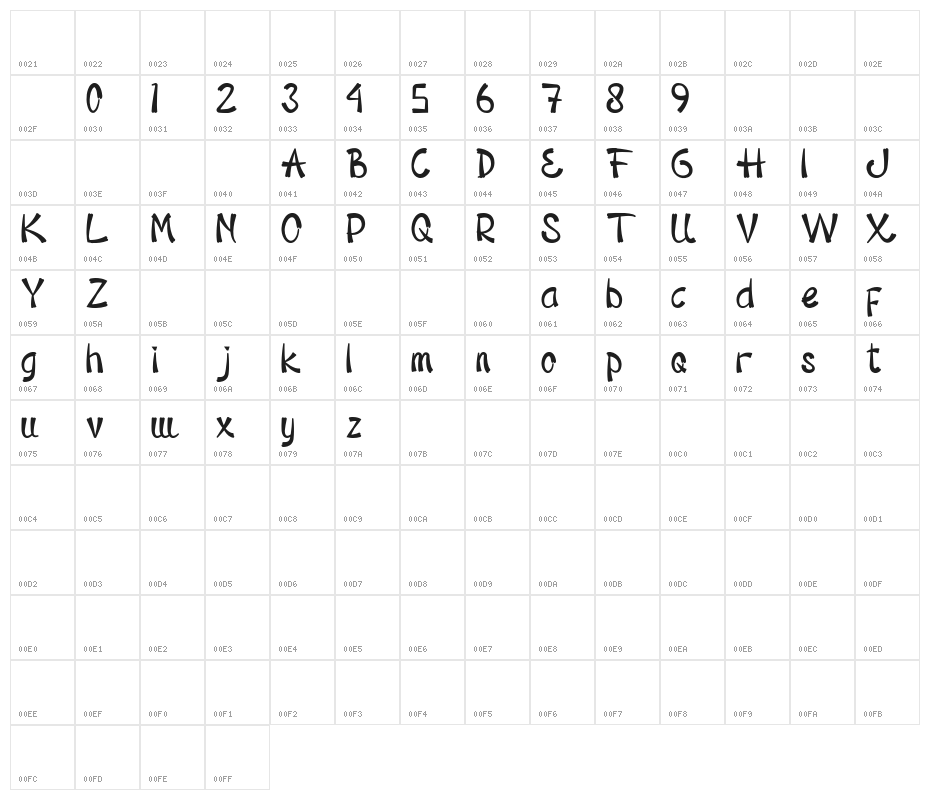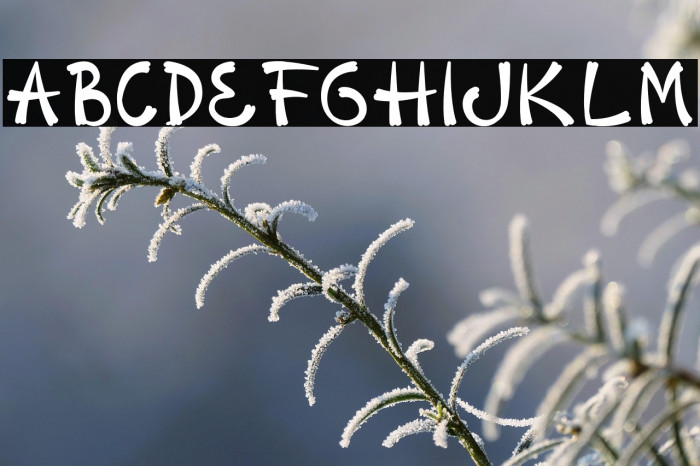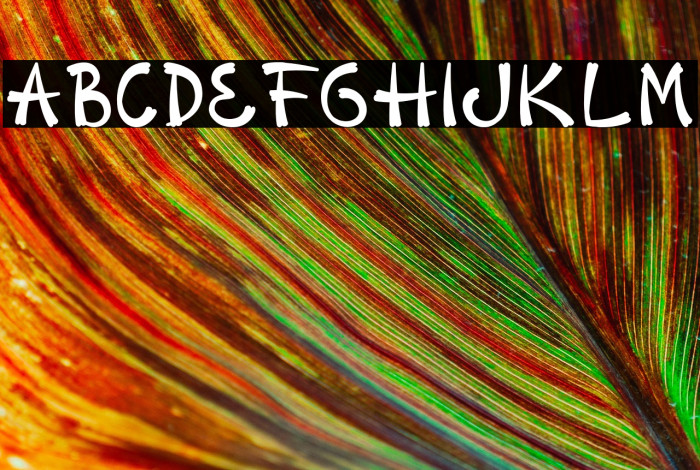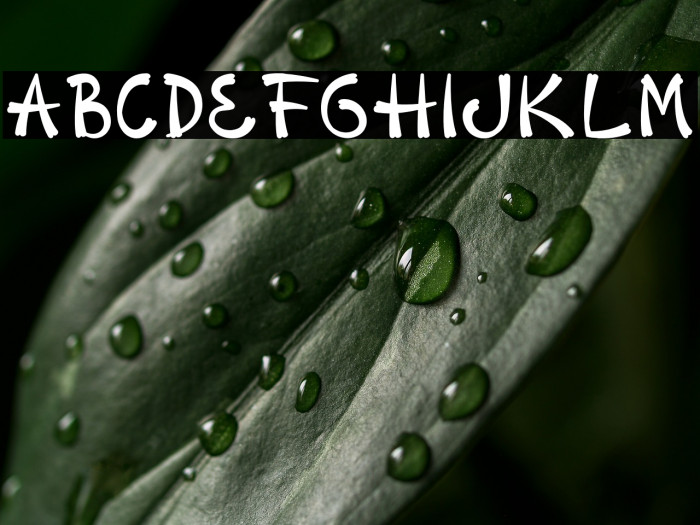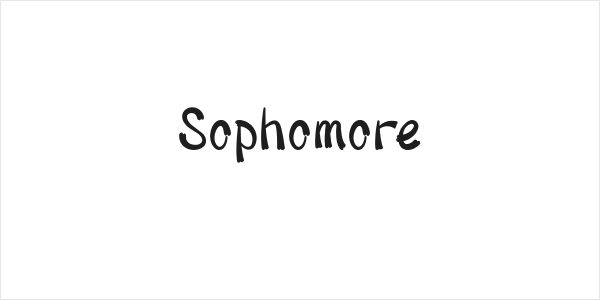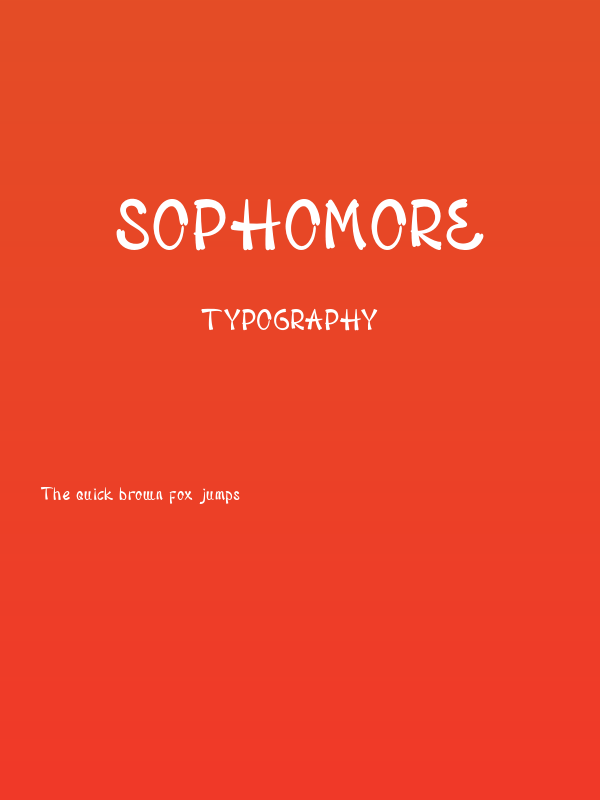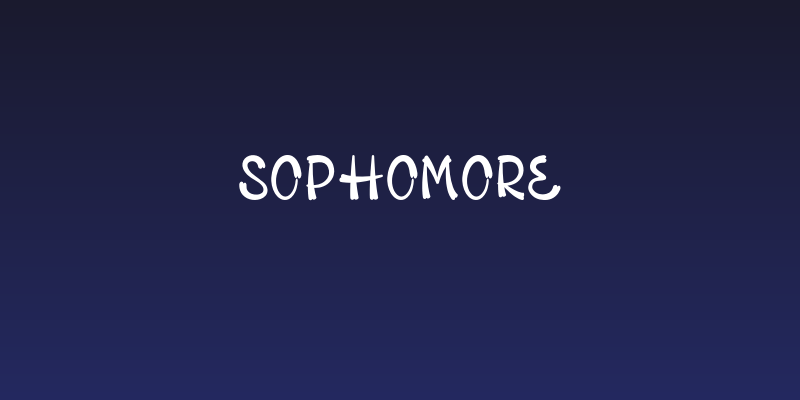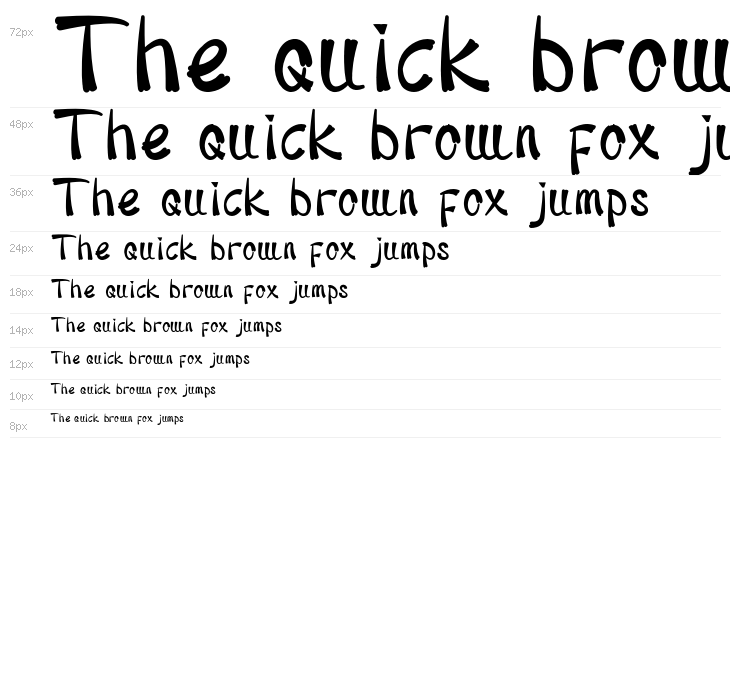
Sophomore Font
This font features a playful and casual handwritten style, characterized by its bold and slightly irregular strokes. The letters have a dynamic flow, with varying thickness that adds a lively and informal touch. The uppercase letters are distinct with a slight slant, while the lowercase letters maintain a consistent height, enhancing readability. The numbers are bold and rounded, complementing the overall style. This font's unique personality makes it suitable for projects that require a friendly and approachable feel.
Overall StyleCasual, Playful
Use CaseHeadlines, Logos, Informal Text
Proposed ProjectsIdeal for children's books, greeting cards, playful branding, and informal invitations.